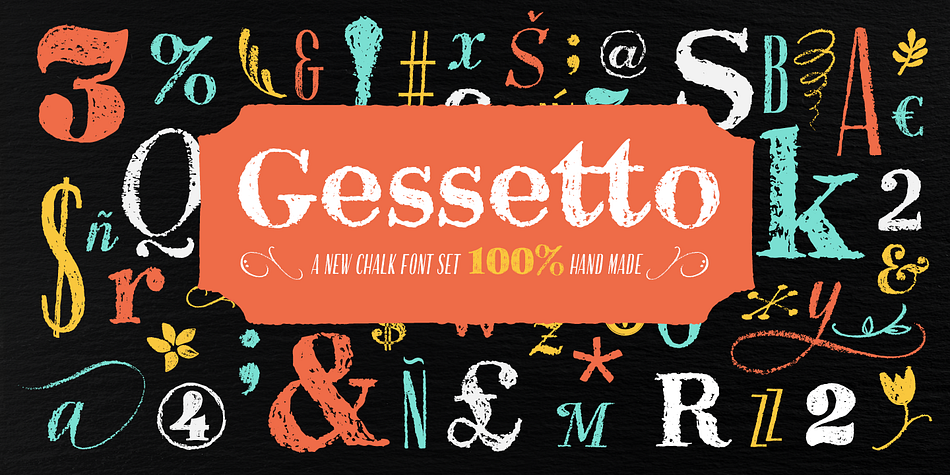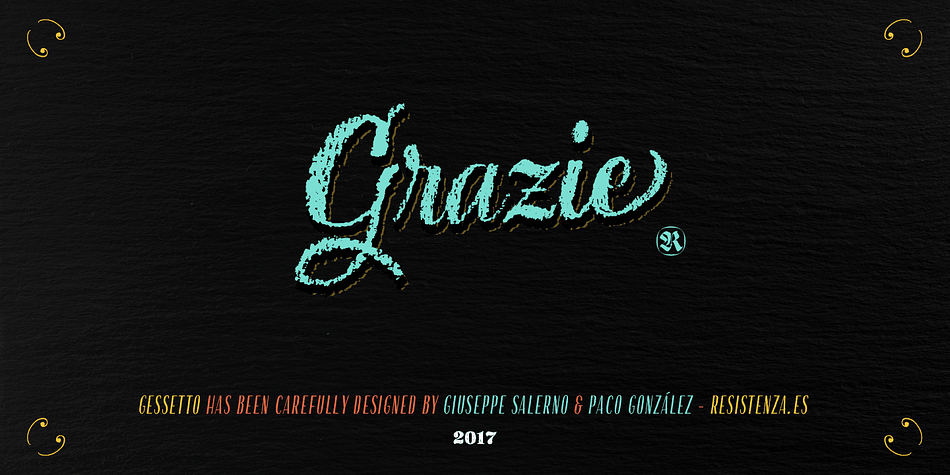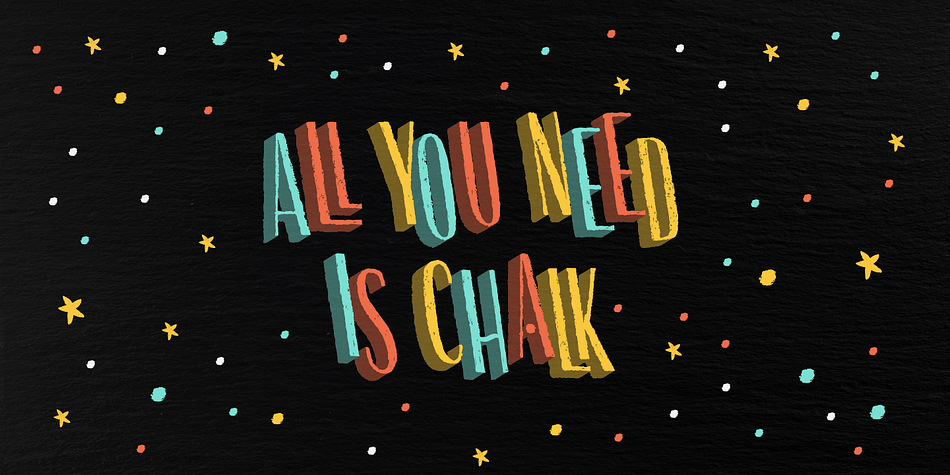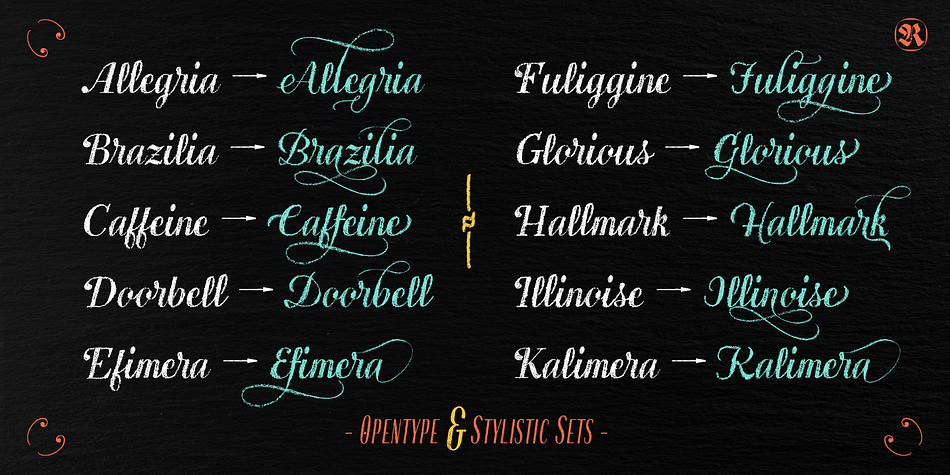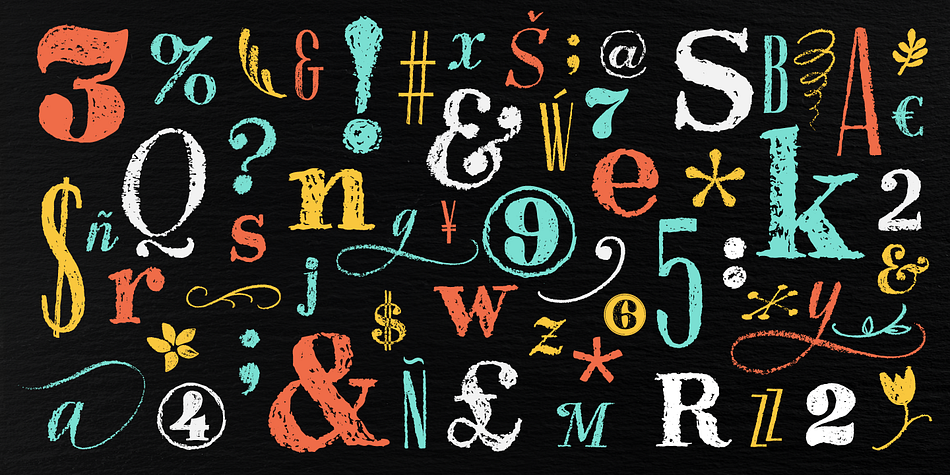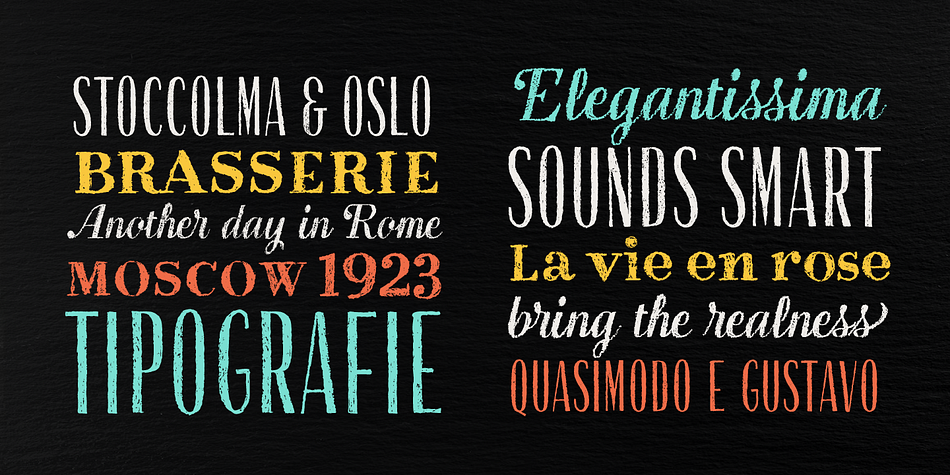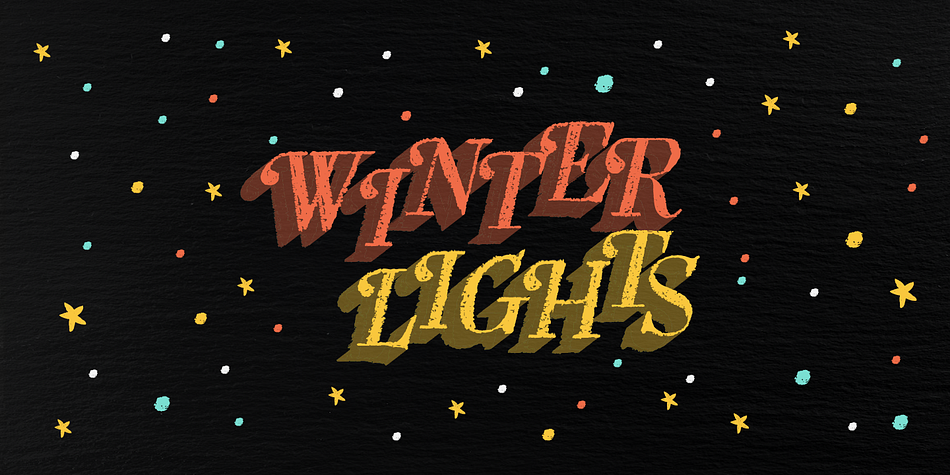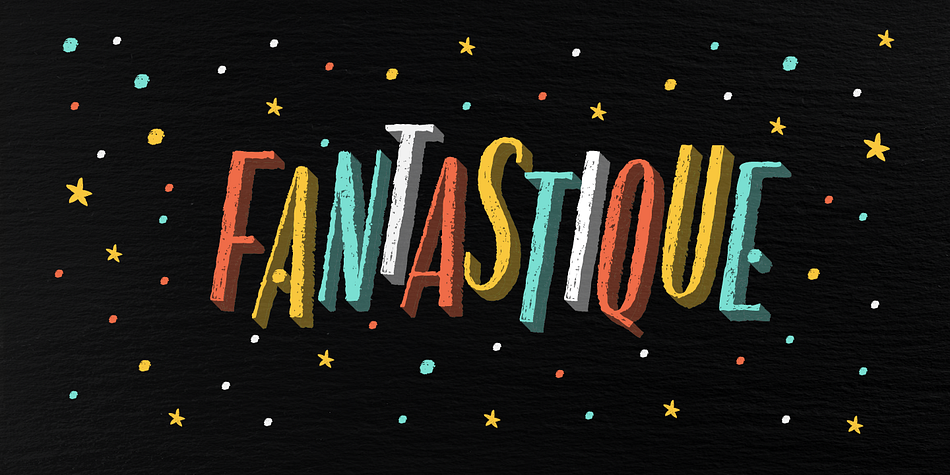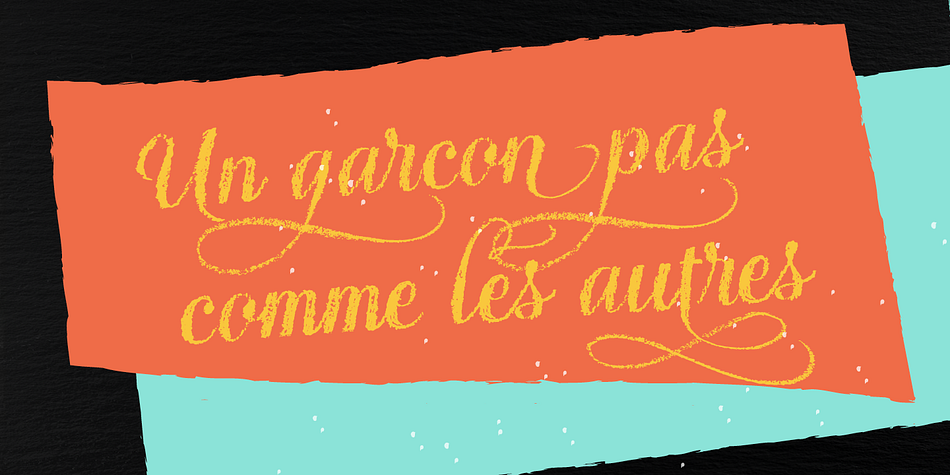
Gessetto is a multiple classification font family. This typeface has nine styles and was published by Resistenza.es.
Gessetto is a chalk font family, containing script, sans, roman, figures and ornaments.
Is a very eclectic set of fonts for your handwritten chalkboard graphics.